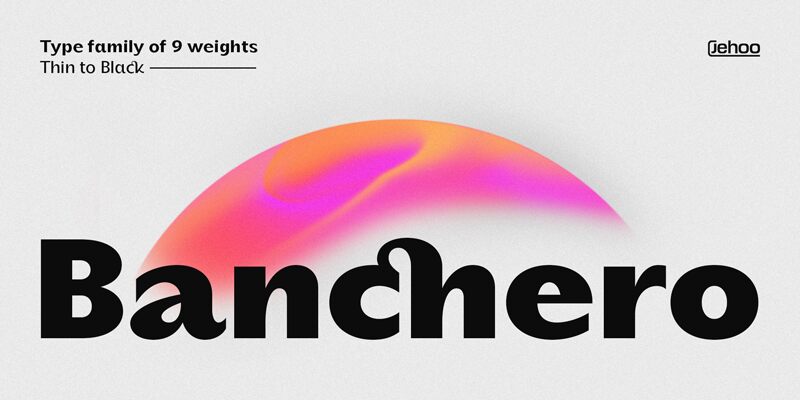
Banchero Bold, a striking sans serif font by Jehoo Creative, commands attention with its bold weight and clean lines.
Its modern and confident style makes it perfect for fashion editorials, luxury brand logos, and high-end product packaging. This versatile font adds a touch of sophistication to magazine spreads, book covers, and corporate websites. Banchero Bold's strong presence also lends itself well to headline designs for sports events or music festivals.
With its boldness and elegance, this font is sure to make a lasting impression in any project it graces.